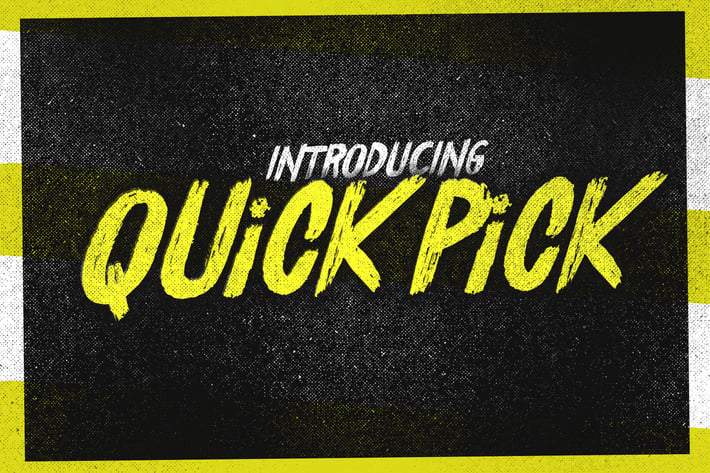
Quick Pick Font
QUICK PICK is brush font including all US glyphs and it comes in regular and slant version. Ideal for loud messages. Made with round marker adding realistic moves in it. Very interesting to use for logos, name tags, handwritten quotes, product packaging, merchandise, social media & greeting cards .Also, ideal to make t-shirts design and other clothing products.
QUICK PICK - Hand brushed font including all uppercase letters which has a complete set of A-Z, and support for US glyphs letters. Combinate uppercase and lowercase letters to get interesting text styles.
QUICK PICK L- 17° slant hand brushed font including all uppercase letters which has a complete set of A-Z.